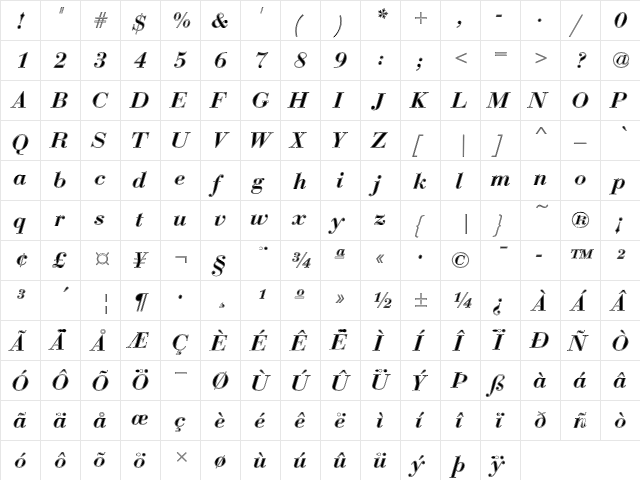
Bauer Bodoni D In1 Regular Font Preview
Bauer Bodoni D In1 Regular
Bauer Bodoni D In1 Regular Font Details
Design Context for Bauer Bodoni D In1 Typeface
Bauer Bodoni D In1 offers clean, dependable letterforms without strong stylistic allegiance, making it a practical choice for designers who need flexibility.